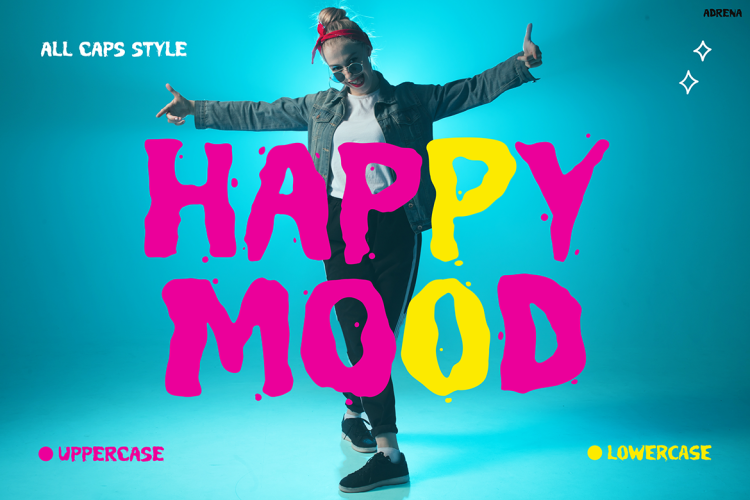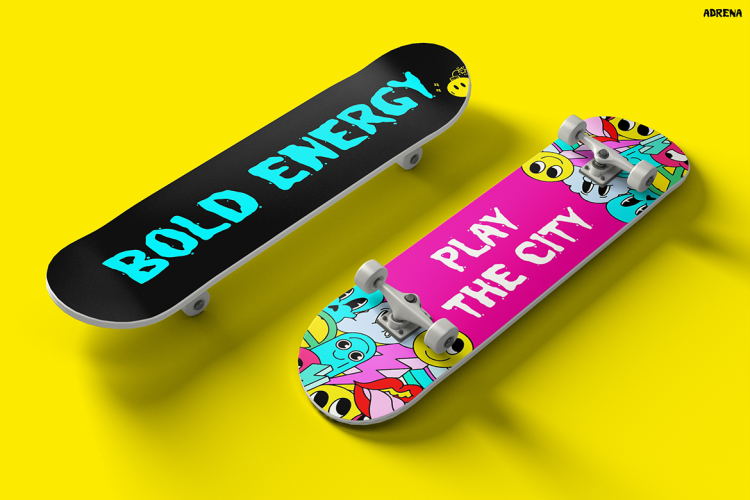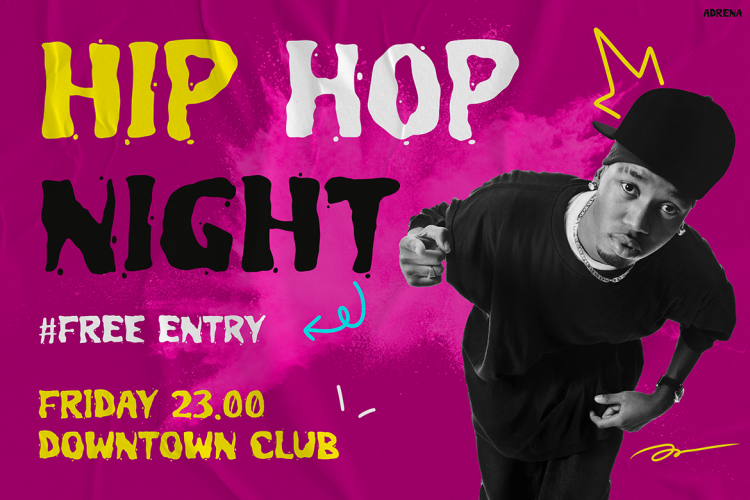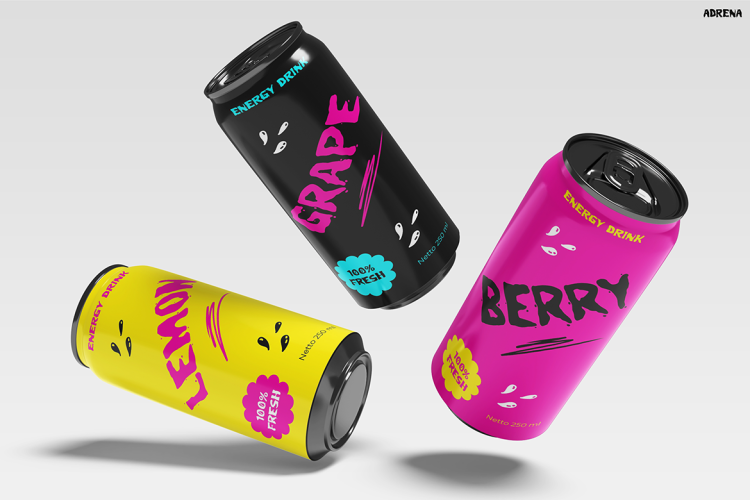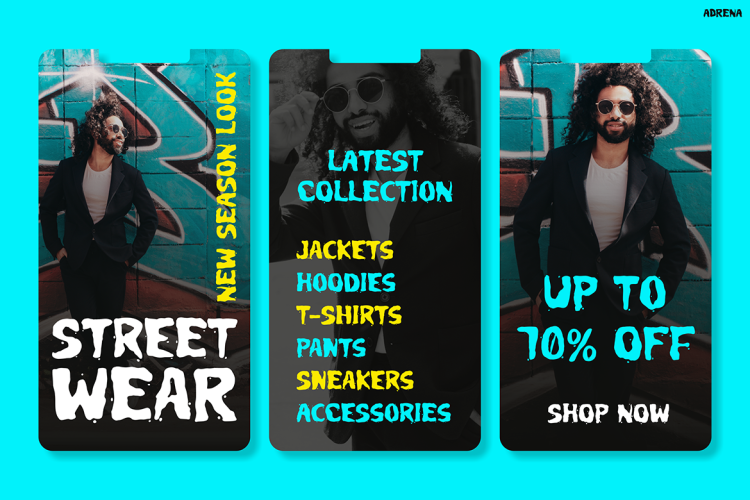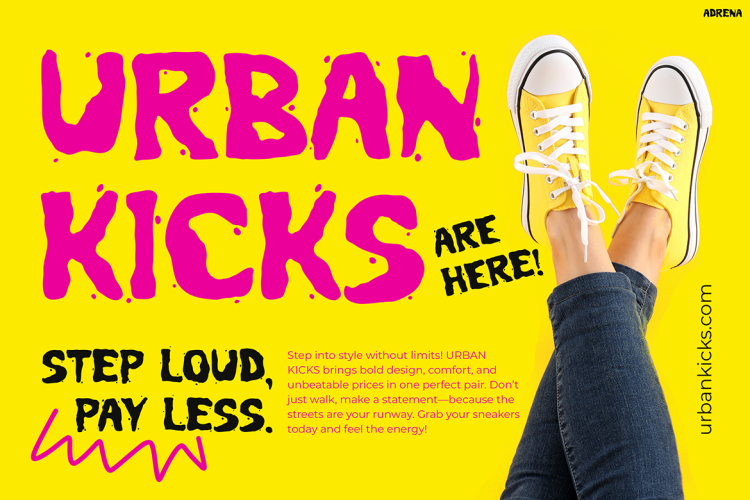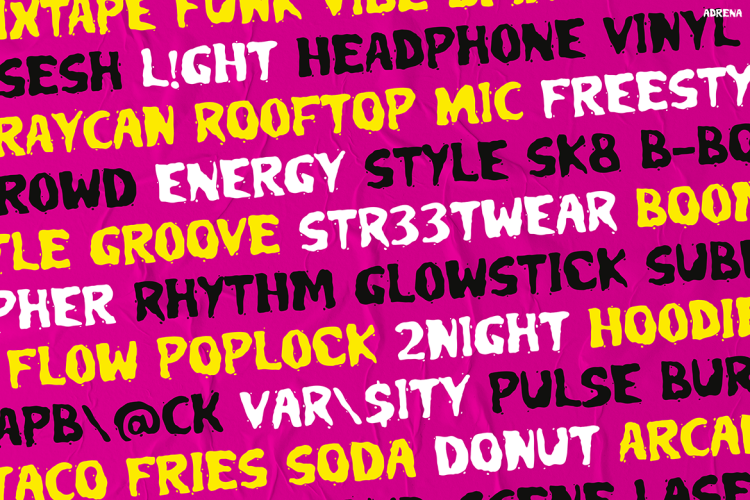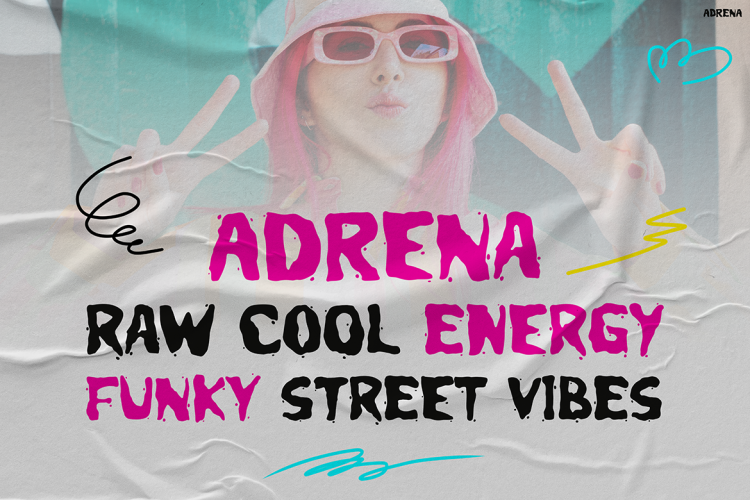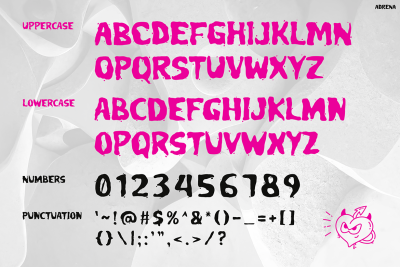
ADRENA โ Raw Cool Energy with Funky Street Vibes
Handwriting Font ADRENA is a bold and playful typeface that instantly sparks energy in any design. What makes this font unique is its raw handwritten aesthetic, which combines expressive strokes with urban street-style influence. As a result, every word looks alive, fresh, and full of personality. Unlike standard fonts, ADRENA embraces imperfection, and therefore it feels authentic, dynamic, and stylish. Whether you need something fun, modern, or eye-catching, this font is designed to turn simple text into a powerful statement.
Why Handwriting Font ADRENA is Special
The beauty of Handwriting Font ADRENA lies in its balance between spontaneity and functionality. Each letter feels hand-drawn, yet it maintains excellent readability, making it perfect for both digital and print media. In addition, the font includes uppercase, lowercase, numbers, and punctuation, so it works seamlessly across different design needs. Moreover, its quirky strokes and bold presence make it ideal for branding projects that require high visual impact.
Because of its versatile style, ADRENA adapts well to different creative purposes. For example, you can use it on posters, streetwear branding, event flyers, product packaging, or even social media graphics. Instead of blending in, your message will stand out with energy, personality, and confidence.
Who Will Love It?
Graphic Designers, because they need fonts that grab attention and communicate strong vibes quickly.
Streetwear Brands, especially those targeting young, trendy audiences who value bold and funky aesthetics.
Music & Event Creators, since they can use ADRENA to promote concerts, hip-hop nights, and festivals with unforgettable style.
Product Packaging Designers, who want packaging that looks fresh, cool, and instantly marketable.
Content Creators & Marketers, because on social media, eye-catching typography is essential to stand out.
In conclusion, if you are searching for a font that reflects raw energy, bold personality, and funky street vibes, Handwriting Font ADRENA is your perfect choice. It is more than just a typeface; it is a creative tool that transforms designs into memorable experiences. So, donโt just settle for ordinary fontsโchoose ADRENA and let your projects shine with confidence and originality.